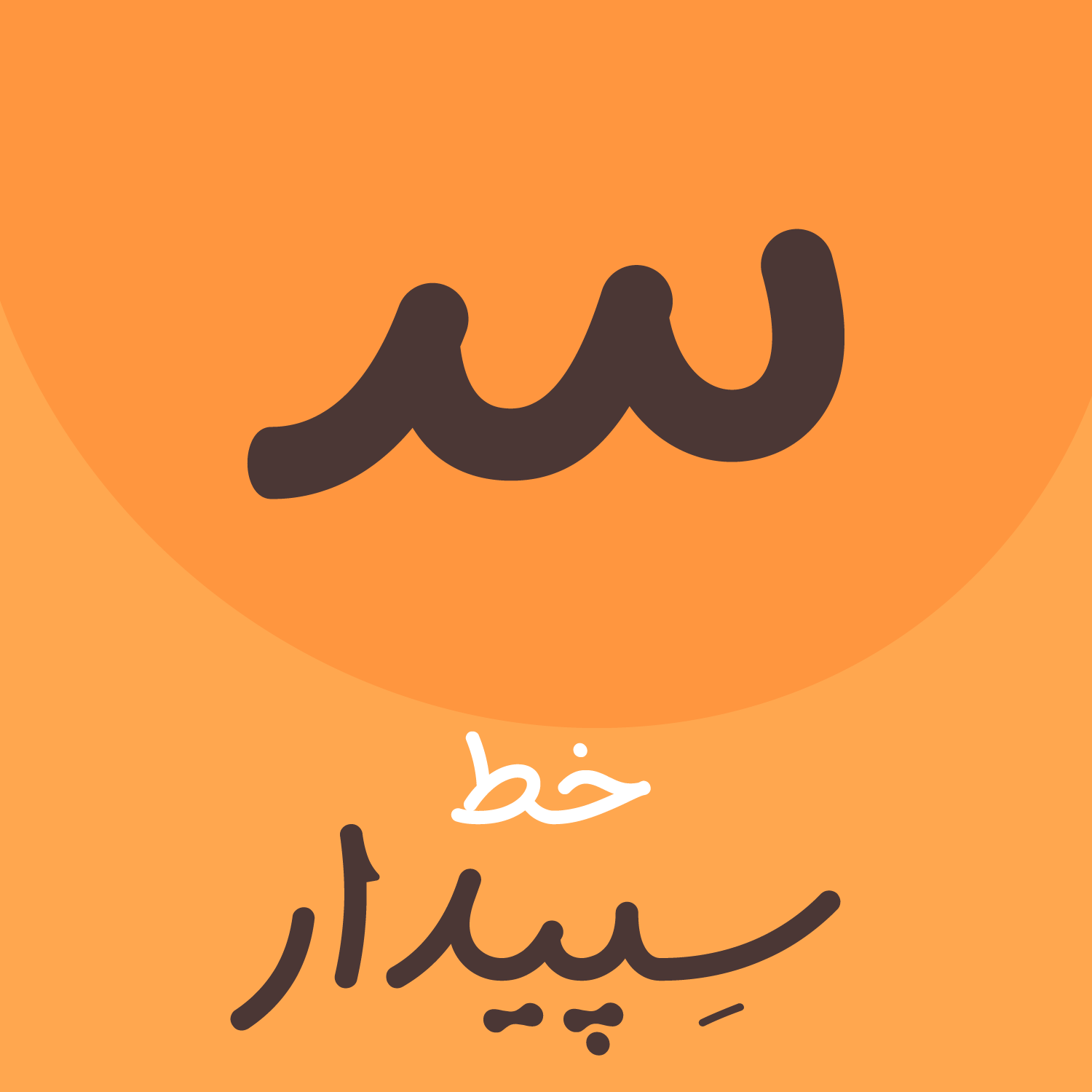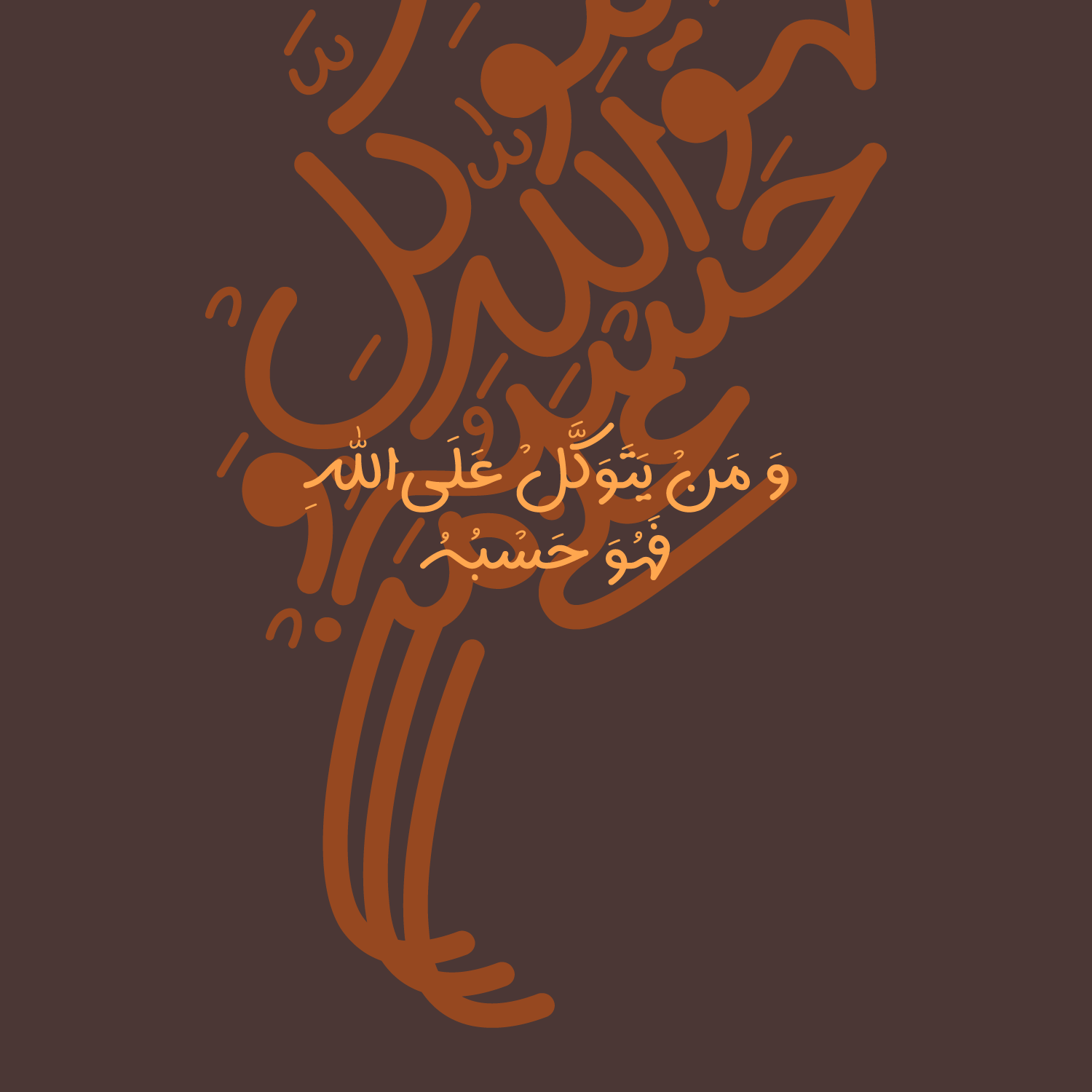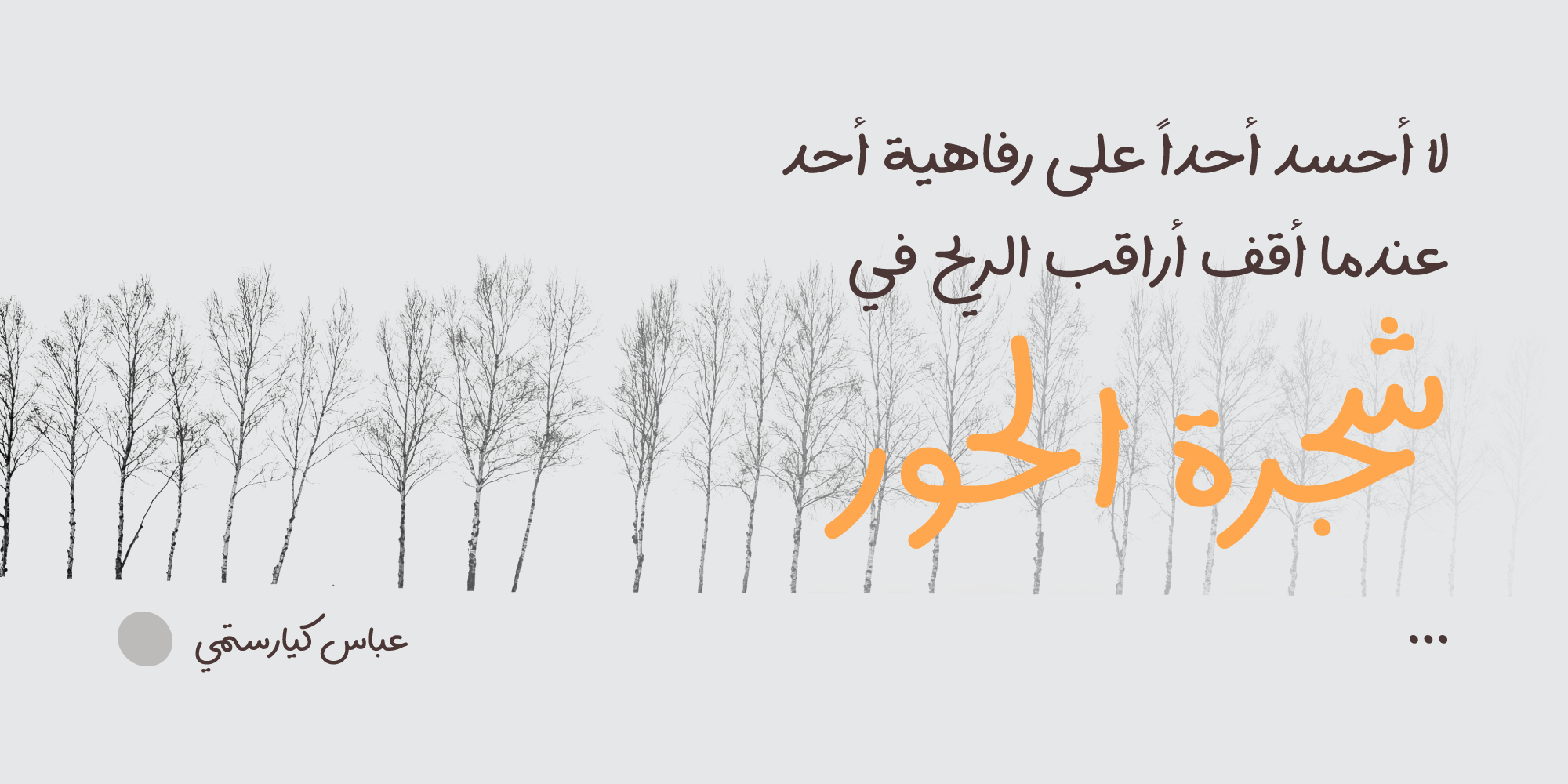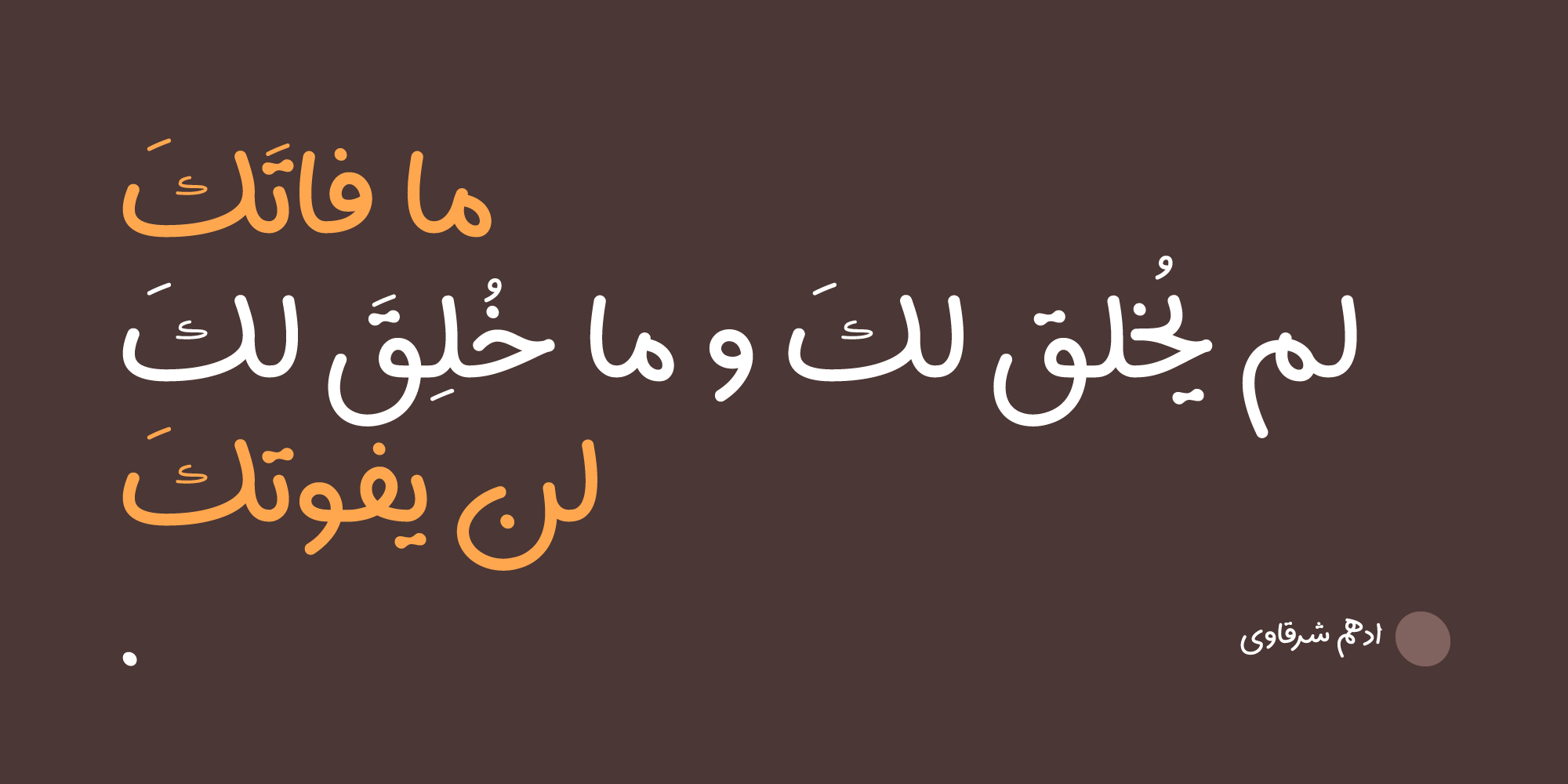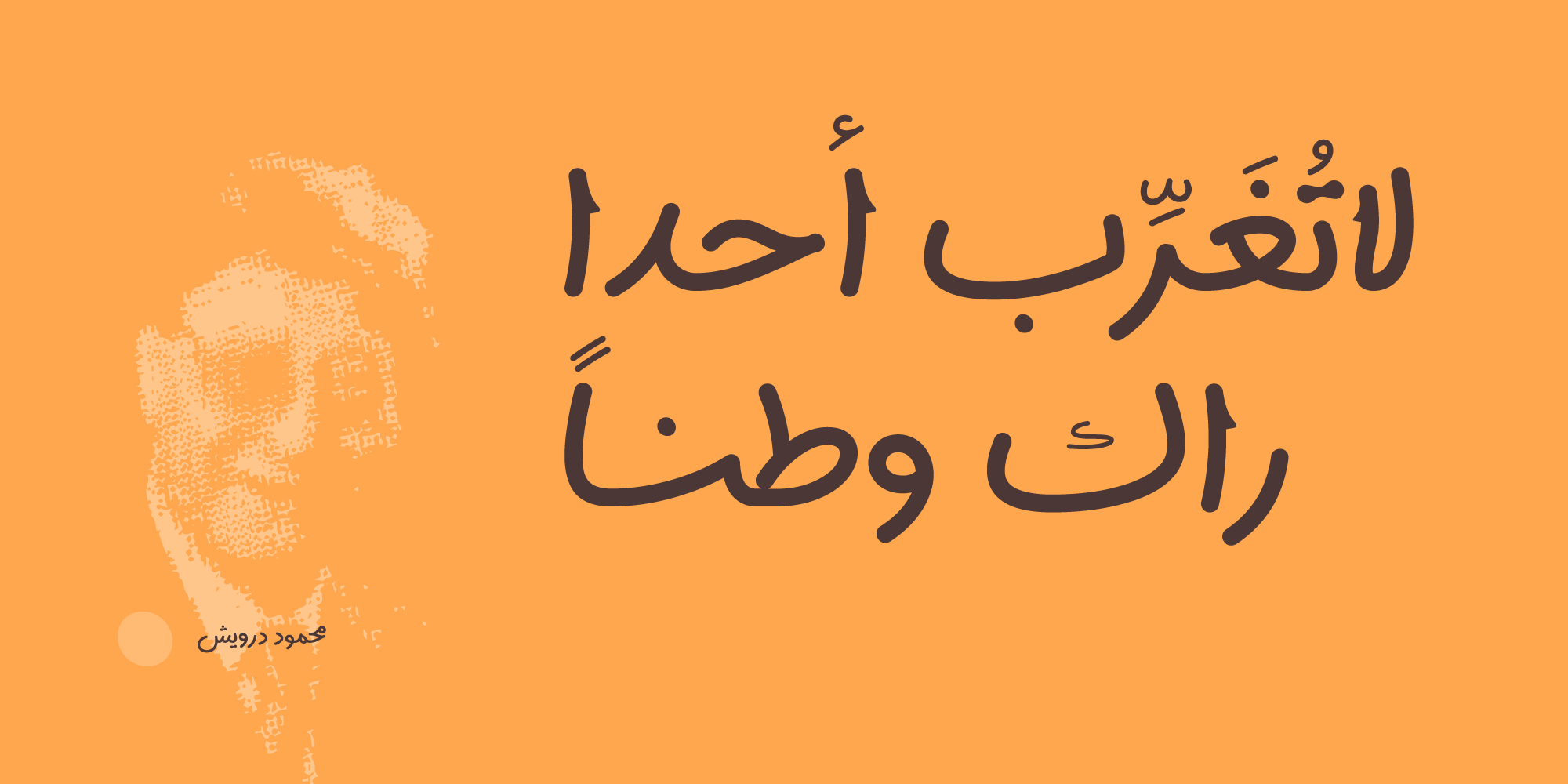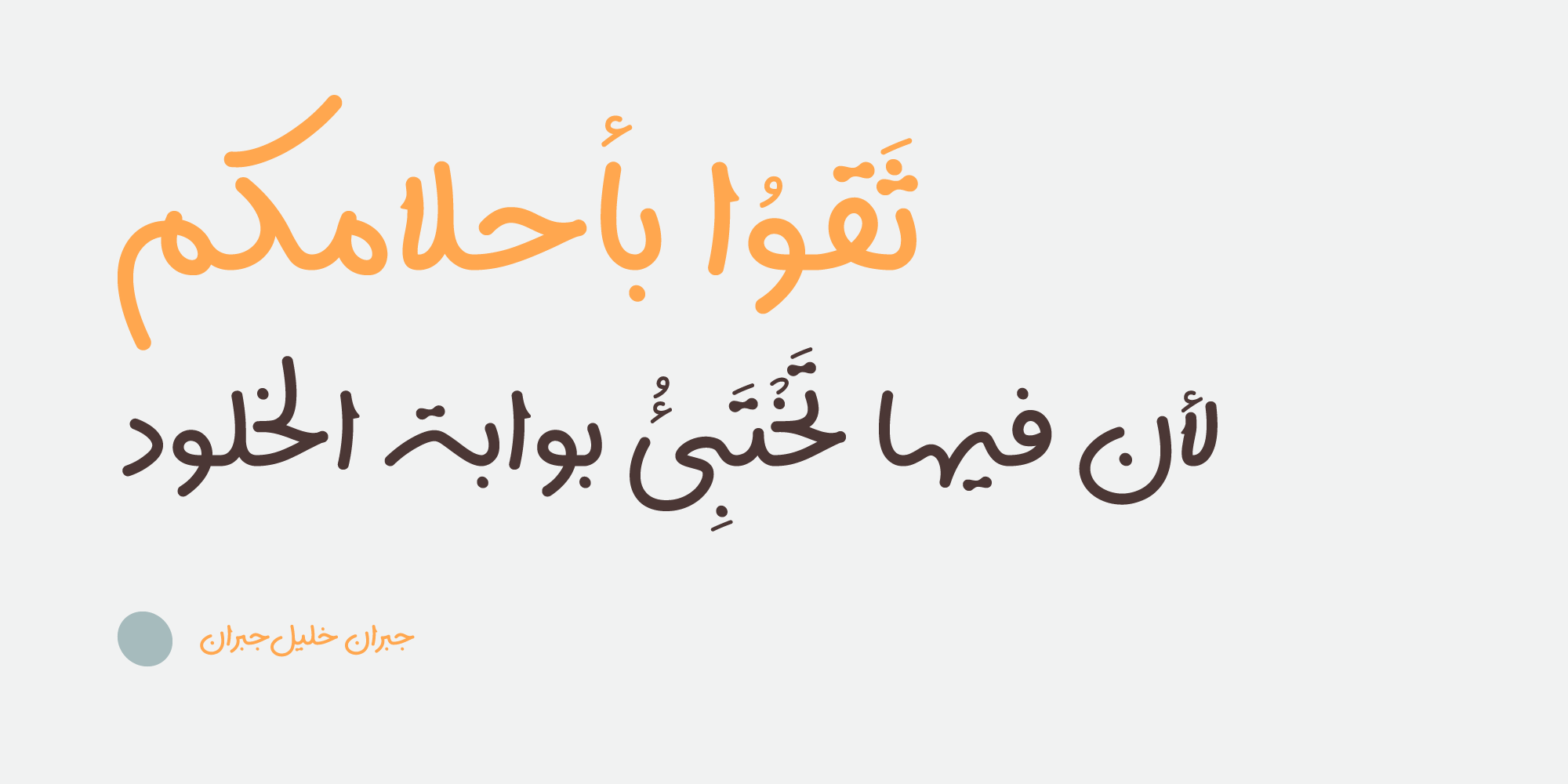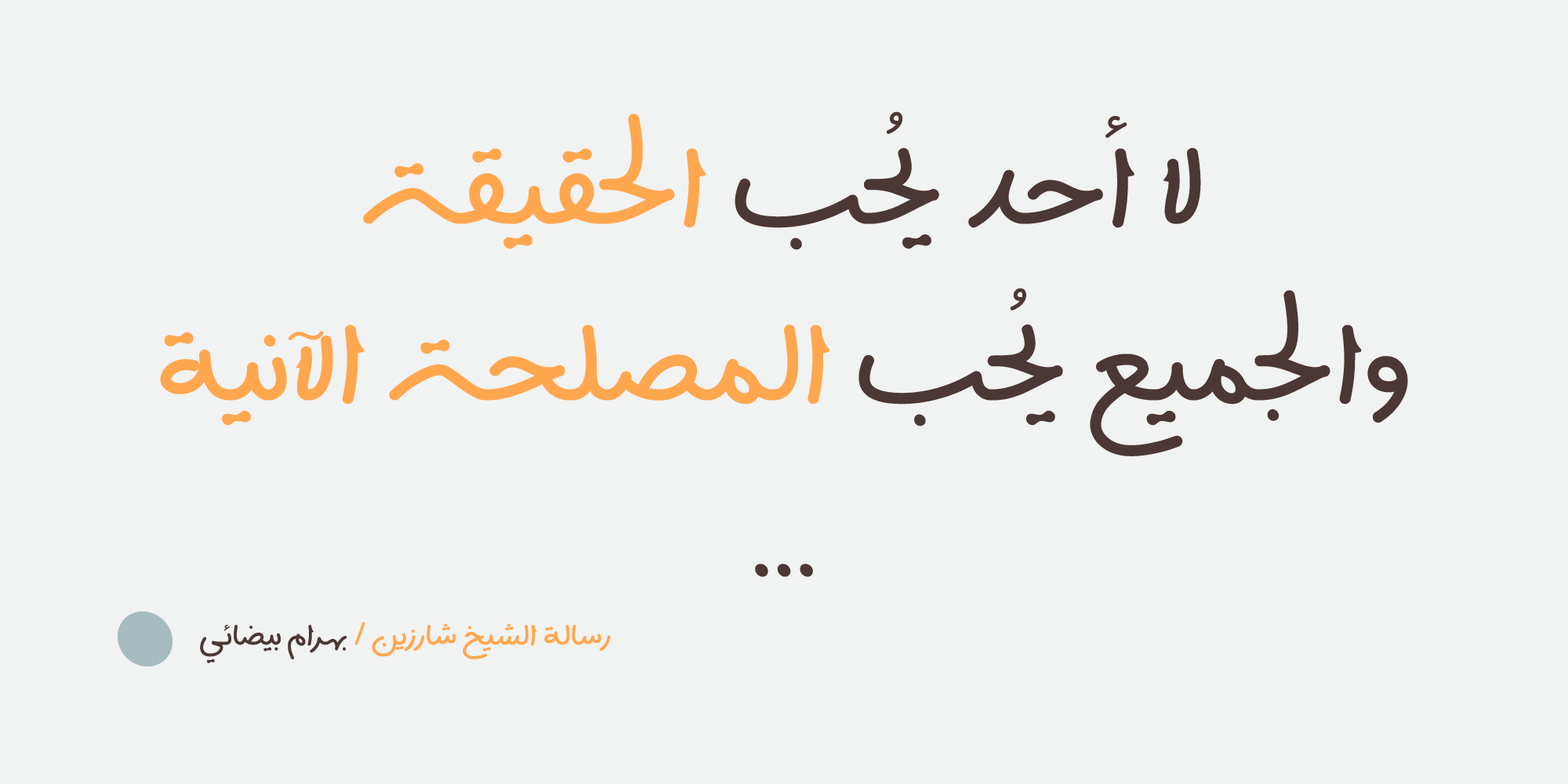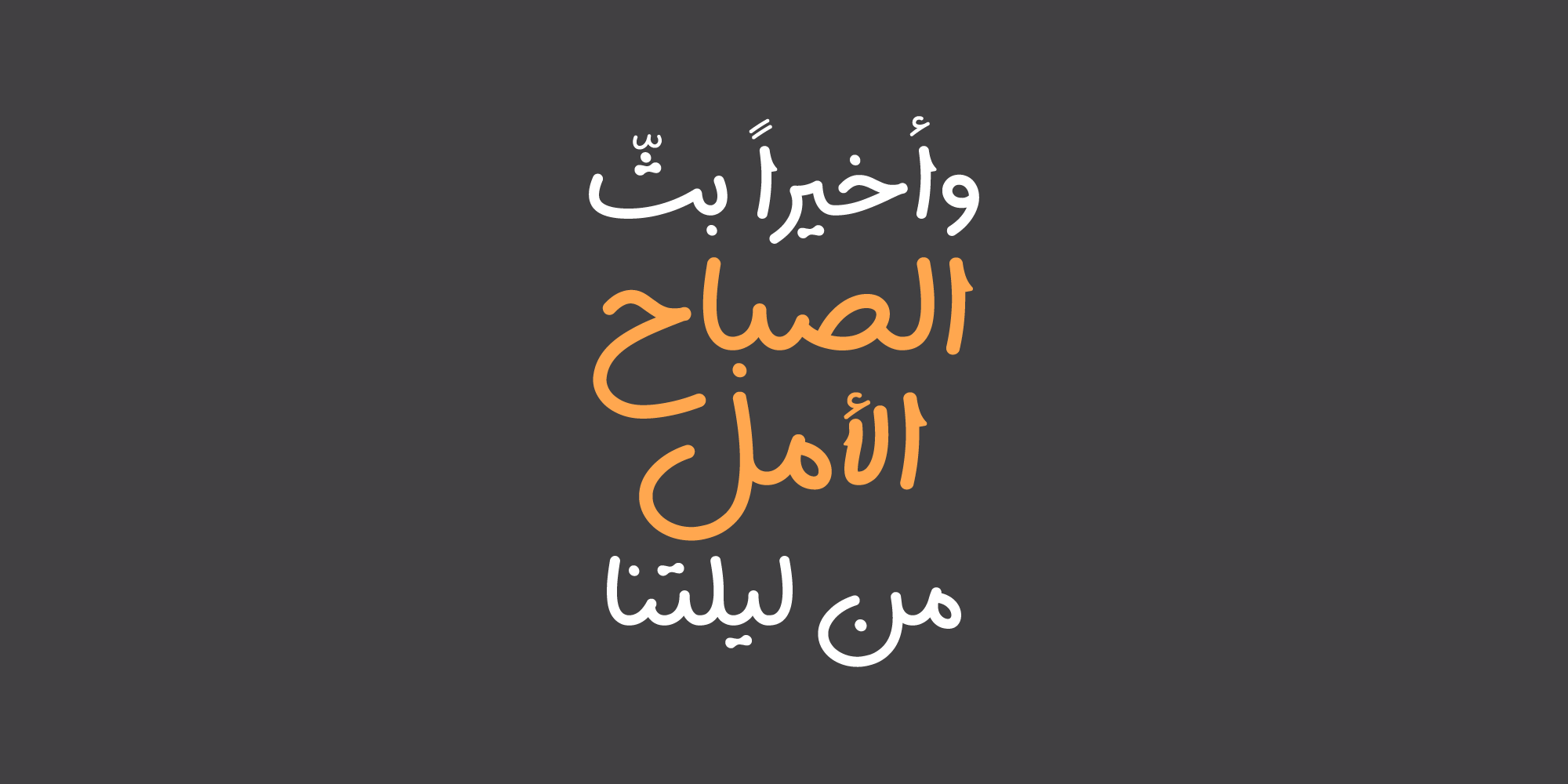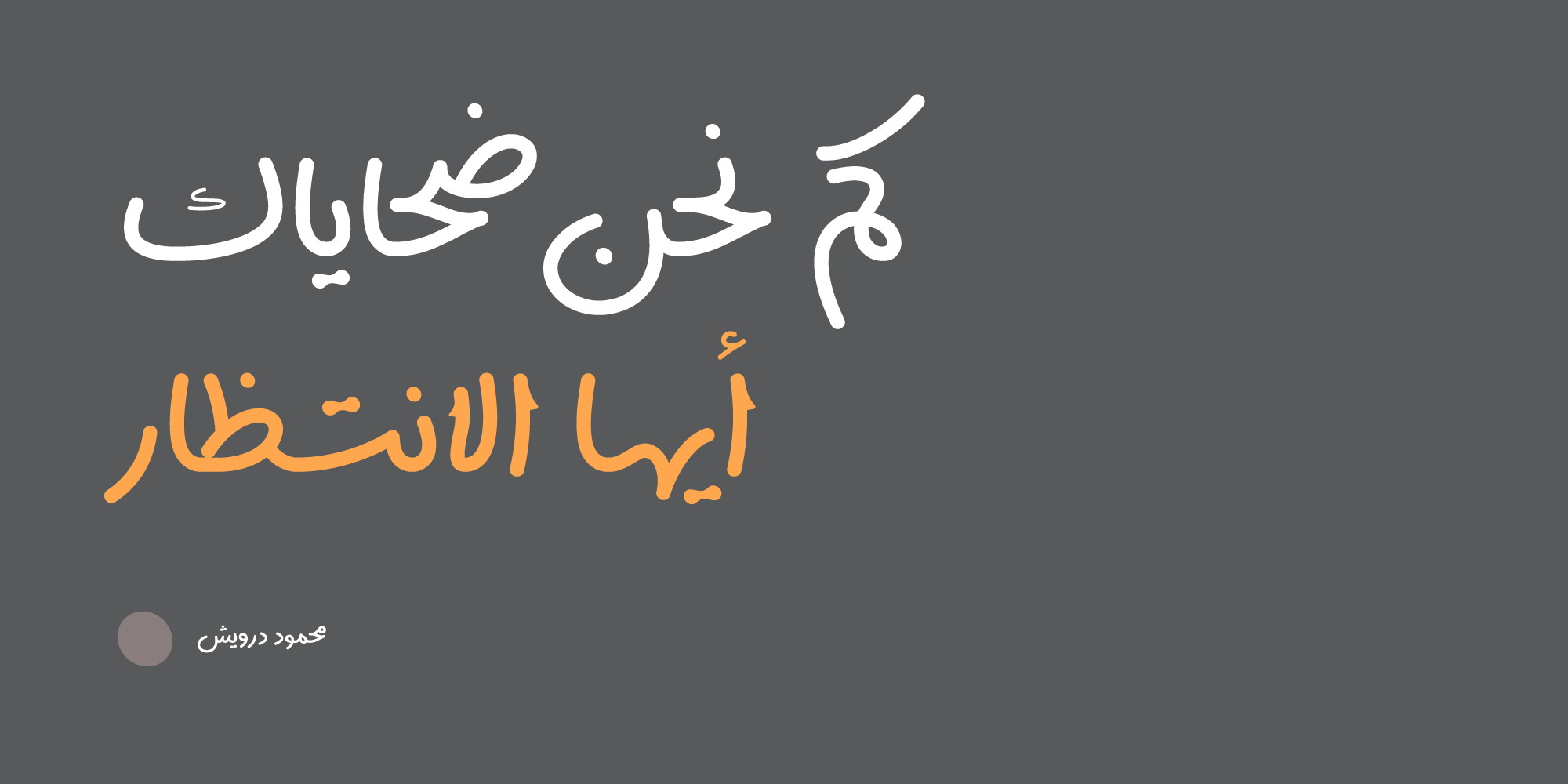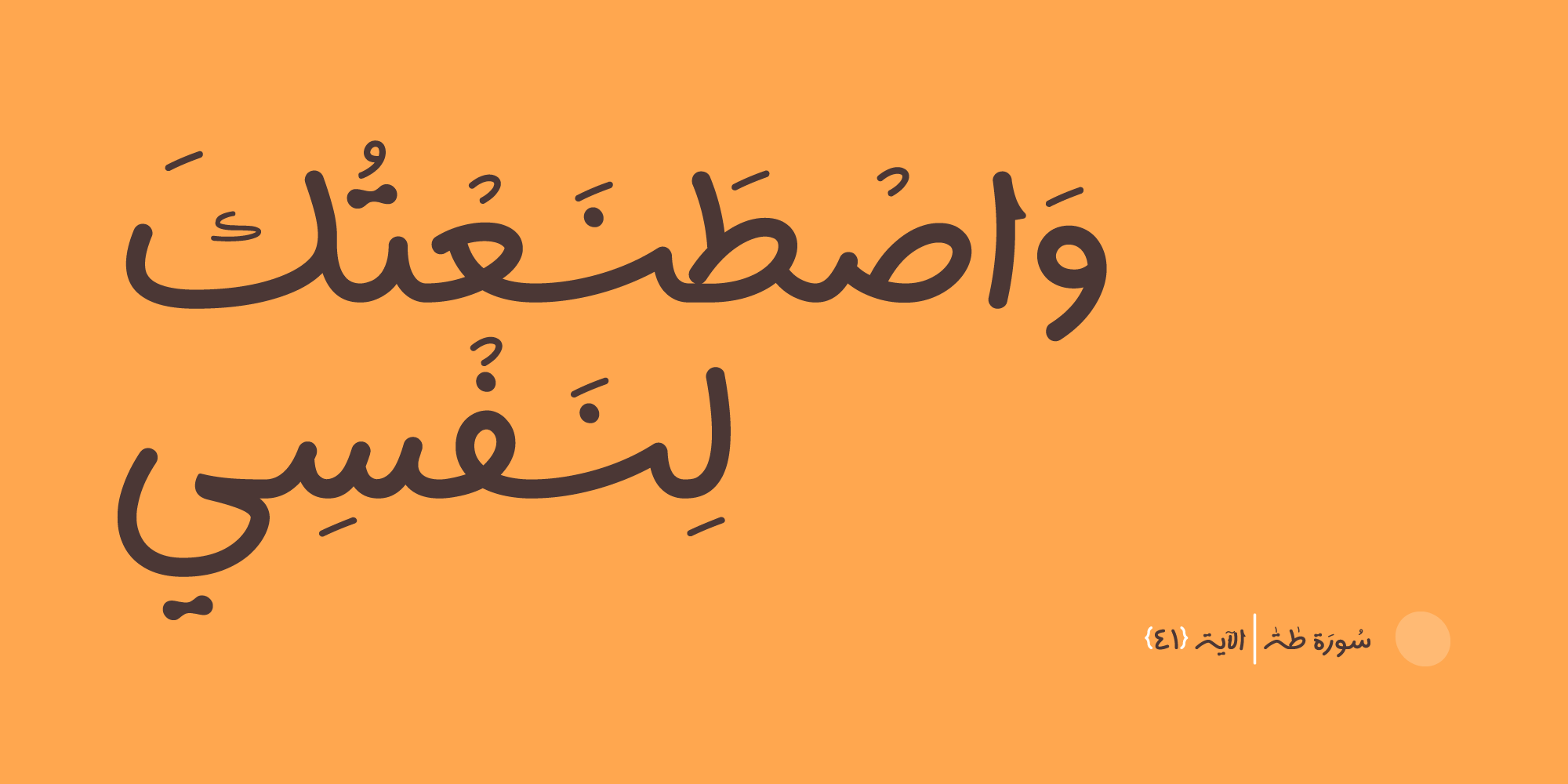
Sepidar
Sepidar has a flexible and soft personality. Therefore, it is suitable for use in various fields such as advertising slogans, headlines, and generally words and sentences that require a different view.
Sepidar has a dramatic personality.
Ligature Variety & Alternate Combinations
Sepidar has ligatures and combinations to vary the type of letter display so that the user can use the Sepidar font as a comprehensive tool to access a set of different letter shapes and can create a personal composition and layout for himself based on the subject and mood of the work he is doing.
Clarity & Multilingual Support
Sepidar is readable and usable at any size.
It supports Arabic, Kurdish, and Urdu with a complete set of words, Arabic numerals, and numbers.